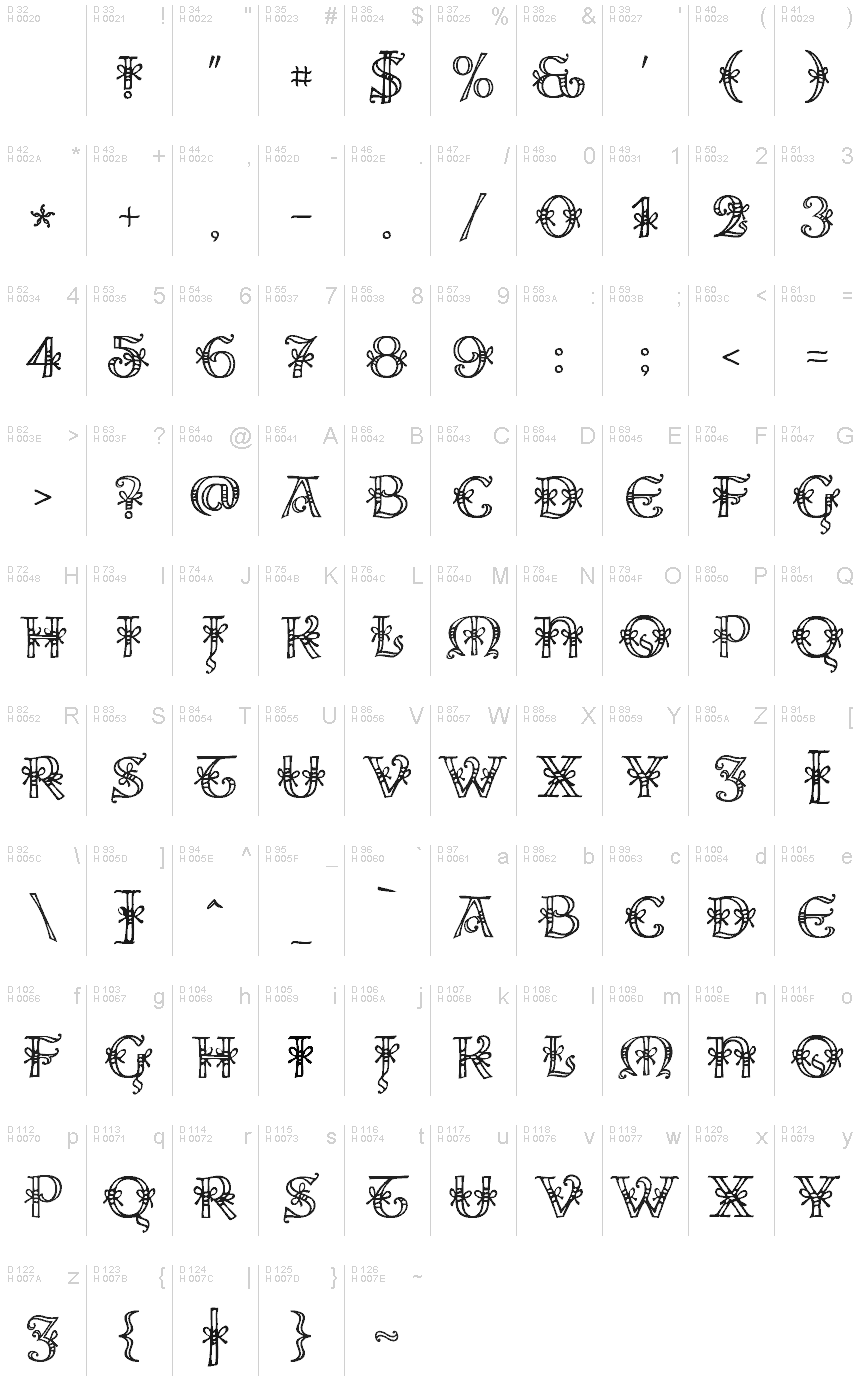
Ales & Hegar Raw
Yet another font of mine inspired by the book "Mldei" by Mikol Ale (1852 1913). Its cover was designed by Milan Hegar and he tried to imitate Ale's ornamental upper case letters from the original 1910s magazines. Now I tried to imitate their combined effort. =)